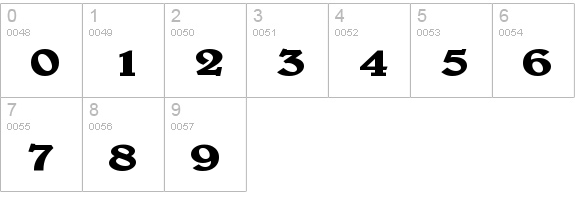
Blew Extended Bold is a strong, high-contrast, extended-width variant in the Blew typeface family \xE2\x80\x94 well suited to headlines, attention-grabbing titles, and strong calls-to-action.
Blew Extended Bold is a striking and bold typeface that commands attention with its strong, modern aesthetic. Perfect for headlines, titles, and other design projects that require a bold statement, this font exudes confidence and power. Its extended characters provide a unique and contemporary look, making it ideal for projects that call for a strong visual presence. For those looking to make a bold statement without breaking the bank, Blew Extended Bold is the perfect choice. This font is available for free download at FontsMarket.com, making it accessible to designers and creatives of all levels. Whether you're working on a branding project, poster design, or website, Blew Extended Bold is sure to make a lasting impression with its bold and dynamic appearance. Download it today and take your designs to the next level!